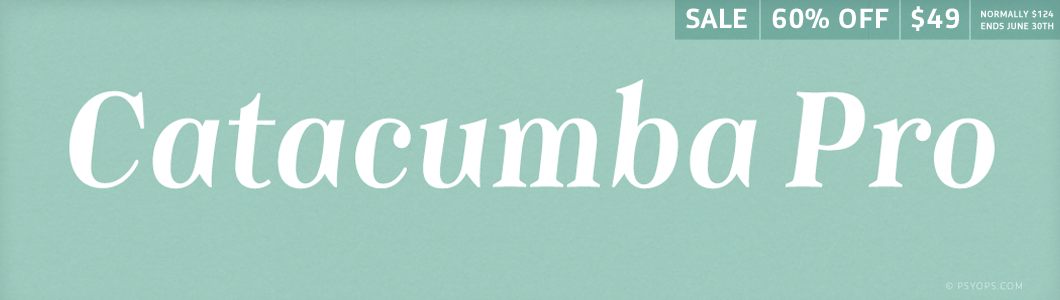
Catacumba is a six-weight typeface inspired by the painted inscriptions of the Igreja de São Francisco church’s catacombs in Porto, Portugal. The forms are clearly influenced by Victorian style, with an unmistakable French heritage, and yet they somehow convey a decidedly Portuguese sensibility.
Catacumba’s centerpieces are its two titling styles: the exuberant Excelsa, and the didonesque Moderata. From these two decoratives, four new cuts are derived. These, the Text fonts, are tamer and more understated, but maintain the same artisanal grounding and DNA as the display fonts. Each Catacumba font includes an expanded selection of OpenType ranges and features, allowing for extensive use within the Latin range.